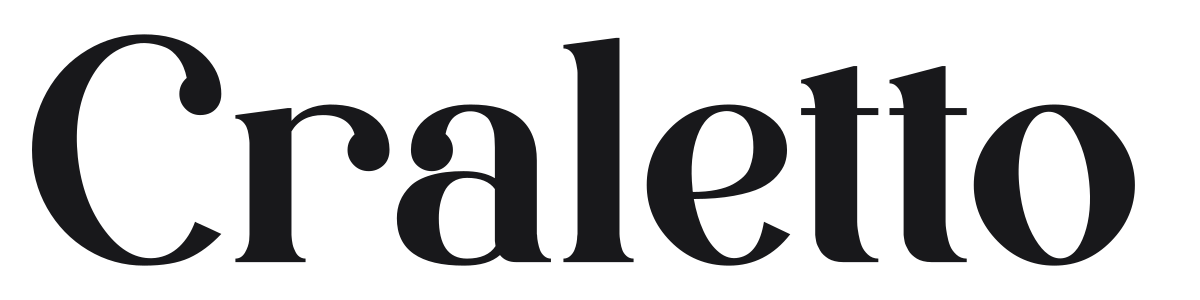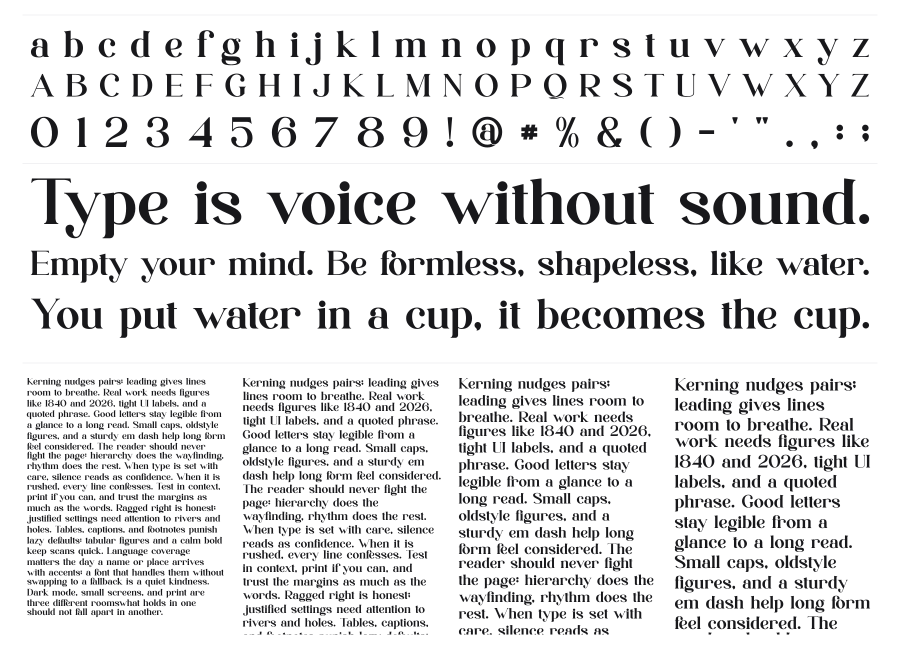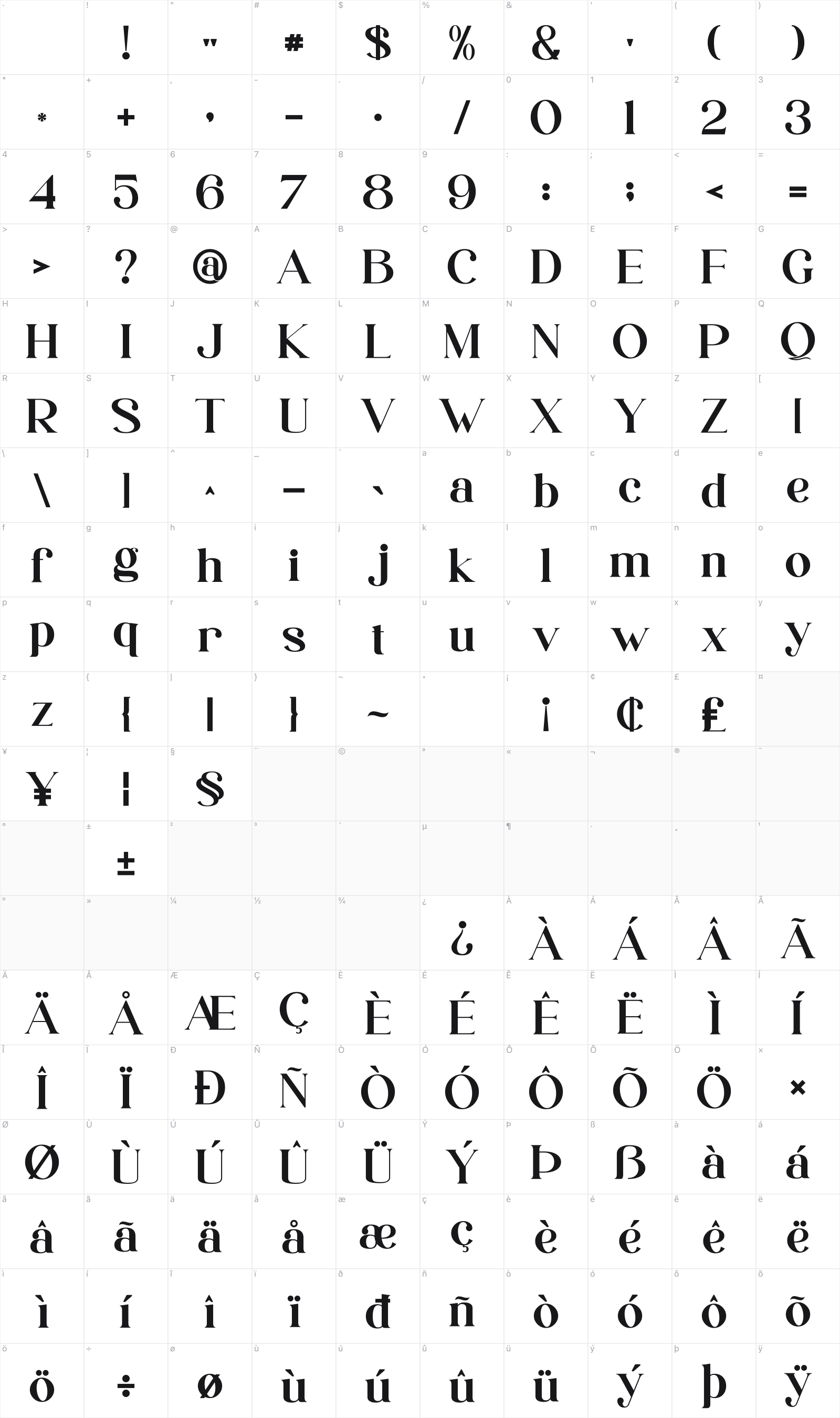
Craletto
Craletto is a bold high-contrast modern serif with the thick-thin stroke drama of the Didone tradition and wide, open proportions. The heavy stems against hairline horizontals give it a commanding editorial presence without feeling stiff. It sits naturally in fashion, beauty, and luxury branding contexts where weight and elegance need to coexist.